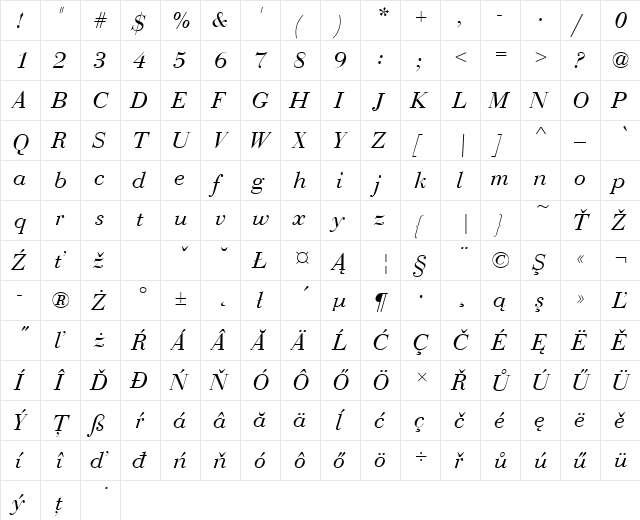
BauerBodDEE Italic
Design Context for BauerBodDEE Typeface
BauerBodDEE offers clean, dependable letterforms without strong stylistic allegiance, making it a practical choice for designers who need flexibility. The slanted form adds forward momentum and visual energy.
Pro Tip: Use BauerBodDEE for emphasis, pull quotes, and subheadings where its slanted energy can add rhythm to the layout.